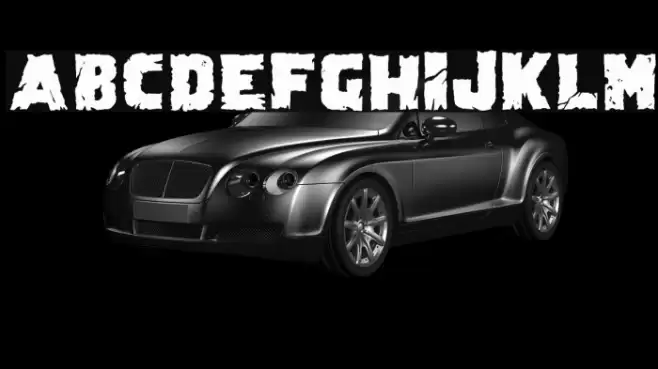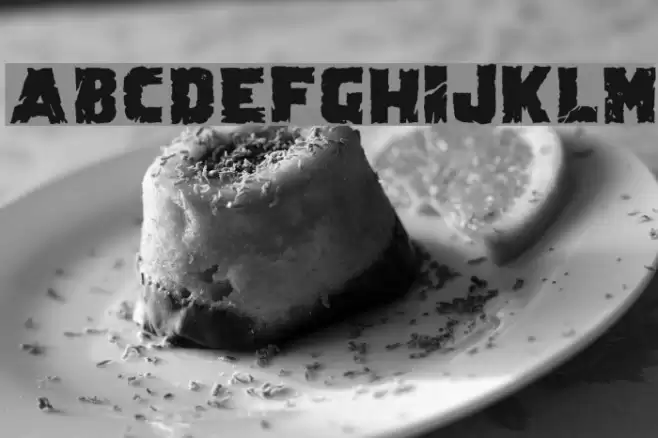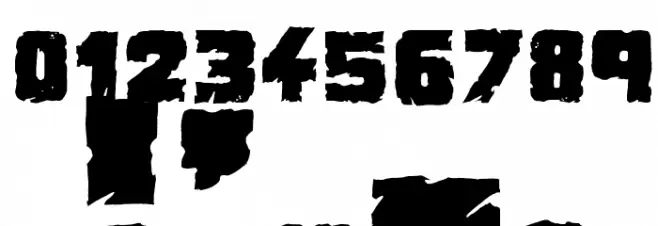
Demolition Crack Black Font
Demolition Crack Black Description
This font features a bold and rugged design, characterized by its distressed and cracked appearance. Each letter and number appears as if it has been shattered, giving it a dynamic and edgy look. The rough texture and uneven edges contribute to its raw and impactful style, making it stand out in any design. The uppercase and lowercase letters maintain a consistent style, with the same distressed effect applied throughout. The numbers and special characters also follow this theme, ensuring a cohesive look across all elements.
A bold, distressed font with a cracked, rugged appearance from Uncategorized fonts.